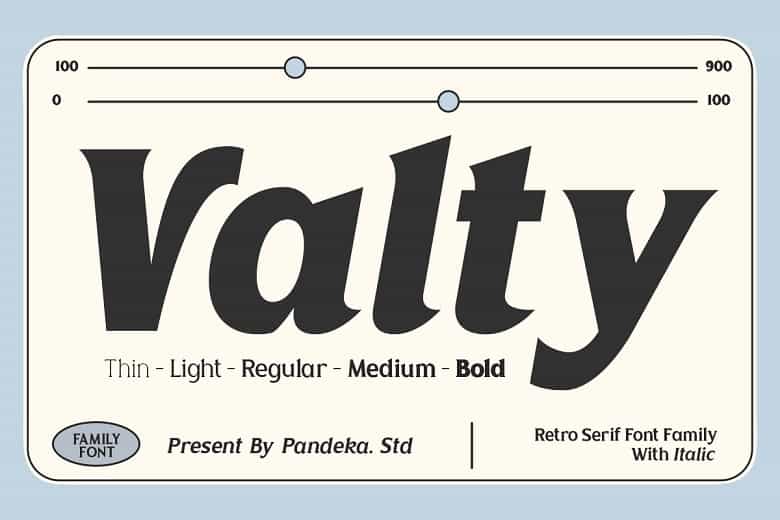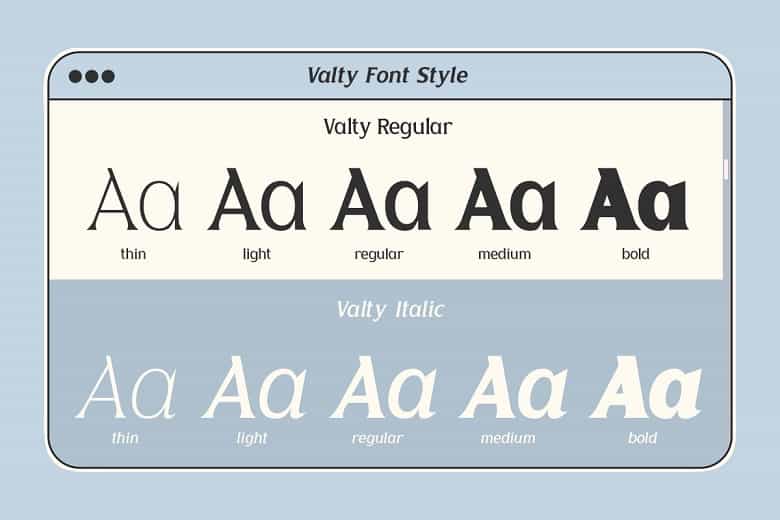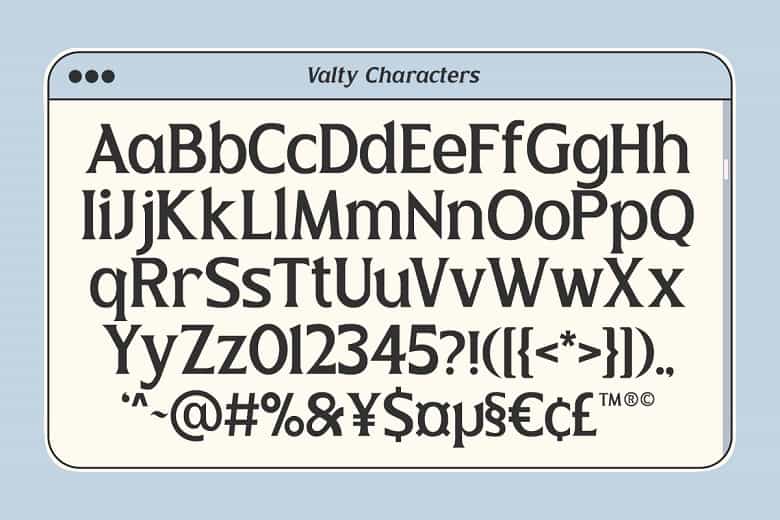
VAlty – stylish fresh retro serif font that reflects the mood of the 80 and 90. Ideal for titles, bills, logos and other projects that require that nostalgic look. It has to be said that Valty does a superb job bringing a real and catchy typographic experience. Valty is an excellent addition to any design project: this retro serif font has the charm of vintage aesthetics combined with the practicality of contemporary use.